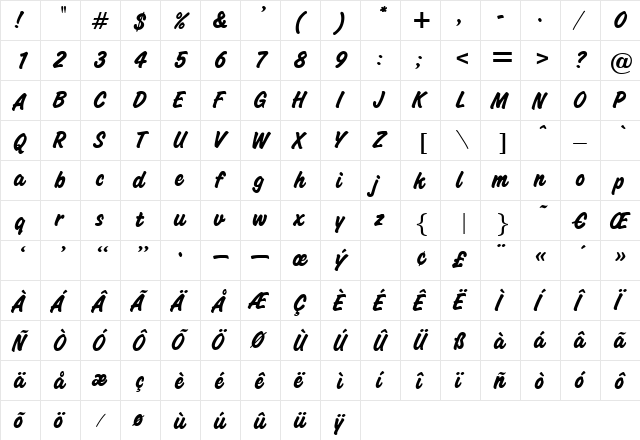
BellamyBold Regular Font Preview
BellamyBold Regular
BellamyBold Regular Font Details
Design Context for BellamyBold Typeface
BellamyBold is a composed and adaptable typeface that performs quietly and consistently across a wide range of design contexts. Its bold stroke weight gives it real presence on the page.